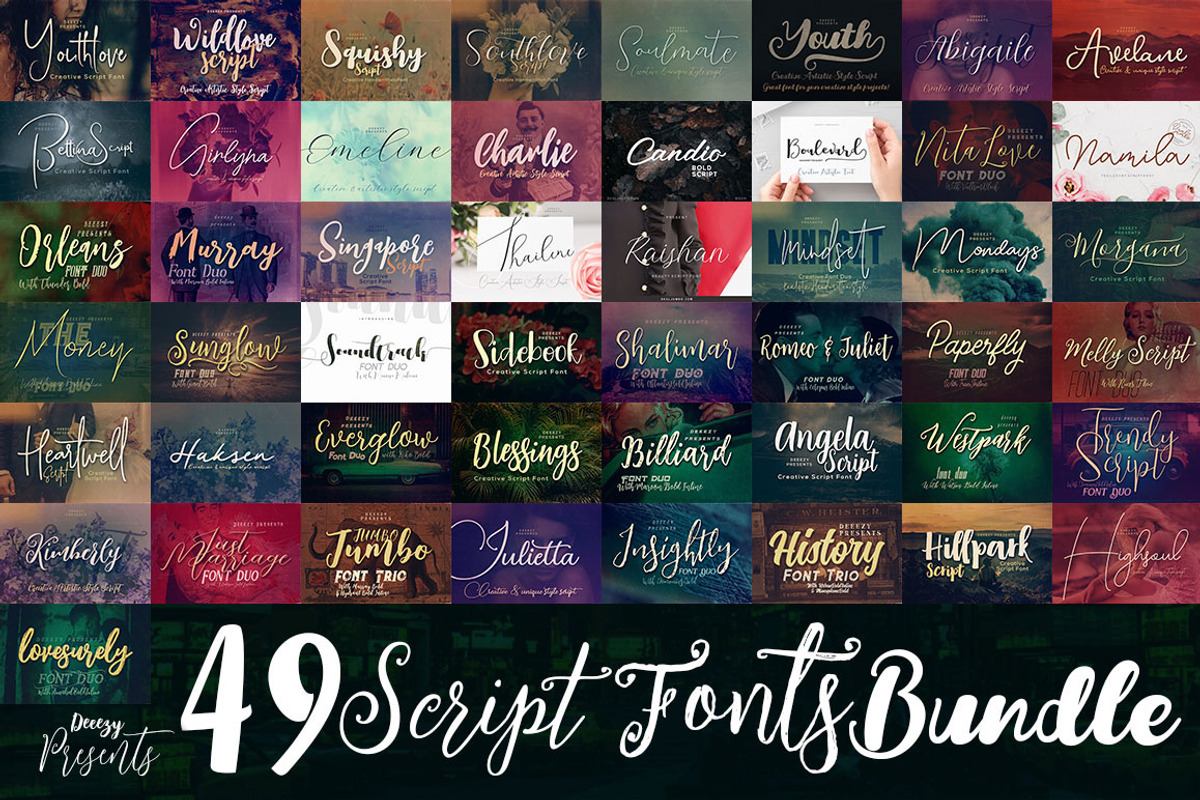
49 Script Fonts Bundle Free Download
The 49 Script Fonts Bundle Free Download is an extensive collection of beautifully crafted script fonts, offering a wide variety of styles to suit any design project. From elegant calligraphy to playful handwritten styles, this bundle includes fonts perfect for creating logos, invitations, branding, social media graphics, posters, and more. Whether you’re working on a wedding design, luxury branding, or a creative campaign, this bundle provides versatile fonts that will elevate your work with style and flair.
49 Script Fonts Bundle Free Download is ideal for designers looking to add a wide range of script fonts to their creative toolkit. Perfect for personal projects, upscale branding, or any design that requires a handwritten touch, this bundle will help you create memorable, stylish typography. Download it today and infuse your work with the elegance and charm of these 49 unique script fonts!